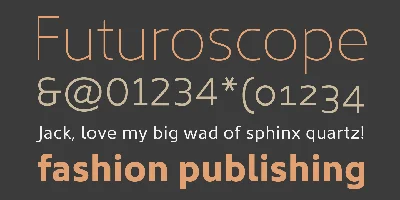
Kyrial Sans Pro Font
Kyrial Sans Pro Font is a clean, modern sans-serif typeface designed for clarity, versatility, and sophistication. Perfect for branding, editorial design, corporate materials, websites, packaging, and advertising, this font offers a sleek, professional aesthetic that adapts beautifully to both digital and print projects. Kyrial Sans Pro Font combines functionality with elegance, making it ideal for a wide range of creative applications.
With Kyrial Sans Pro Font, you’ll receive a complete set of uppercase, lowercase, numbers, and essential punctuation, providing flexibility for everything from headlines to body text. Whether you’re creating marketing materials, product labels, presentations, or social media graphics, this font ensures excellent readability while adding a polished, contemporary touch.
Elevate your design projects with Kyrial Sans Pro Font. Its clean, modern lines make it an essential choice for designers seeking clarity, sophistication, and versatility in their typography.